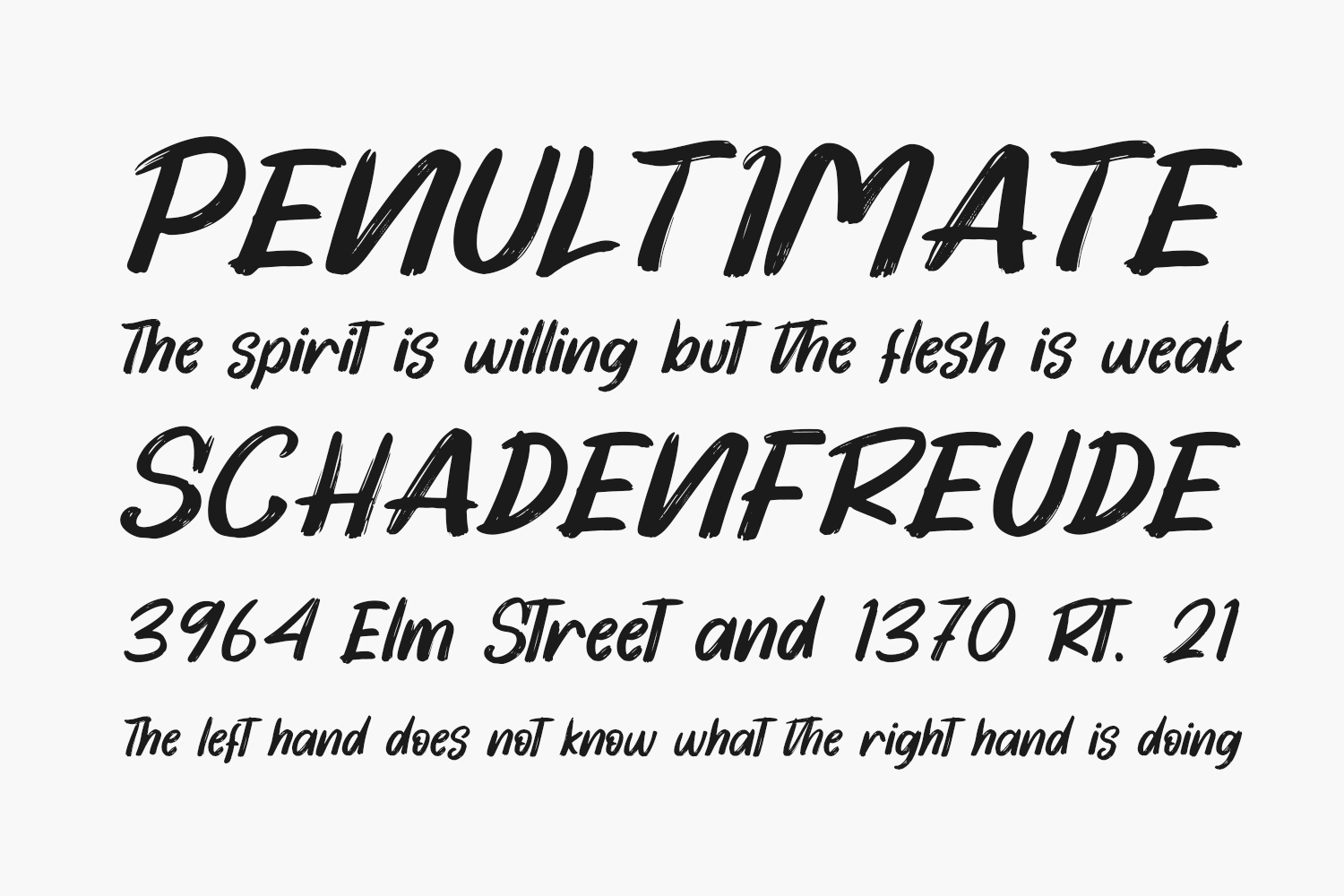
Discover the rugged charm of South Austria Free Font, a versatile display font that exudes natural appeal. With its bold brush strokes, this font adds strength and character to any design. Ideal for logos, quotes, posters, apparel, and beyond, it’s the perfect choice to elevate your creative projects. Witness the captivating results it brings to your designs. Download the font for free if you need it for personal use or purchase the full version for commercial use.
Designed by Annisa Afni